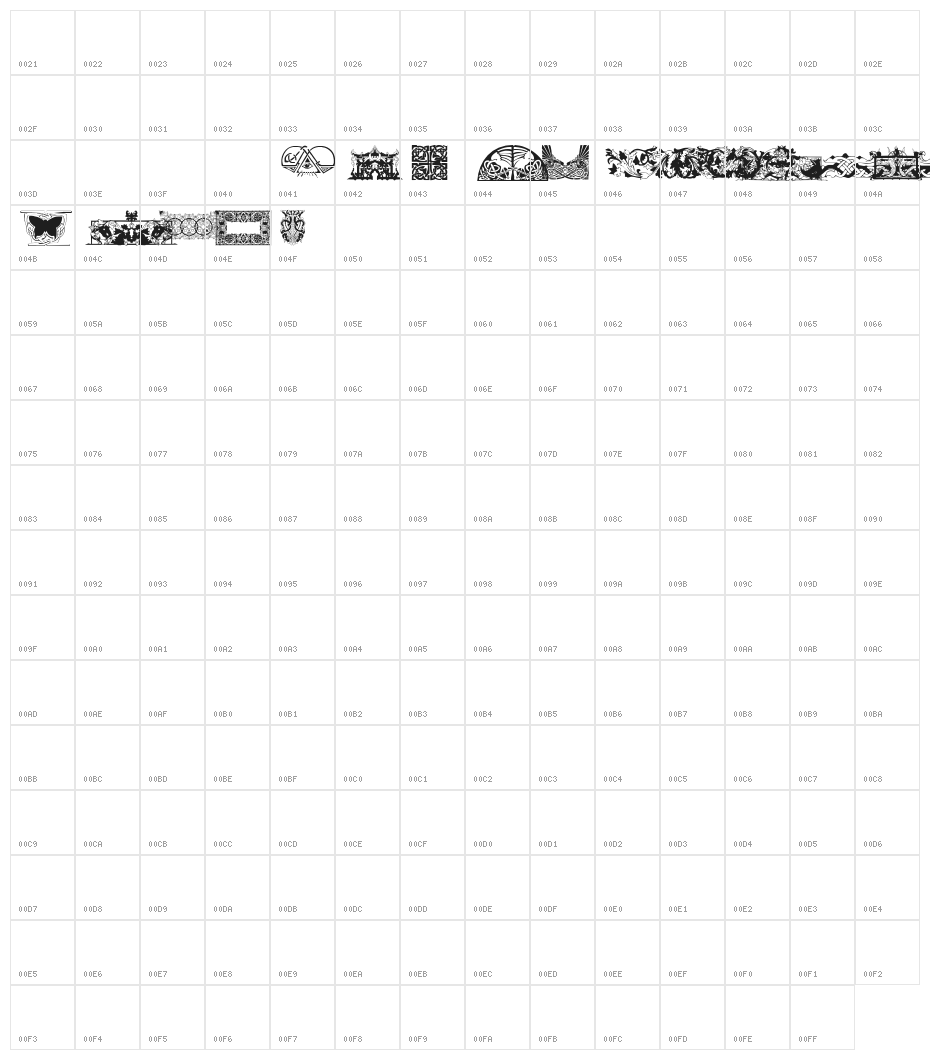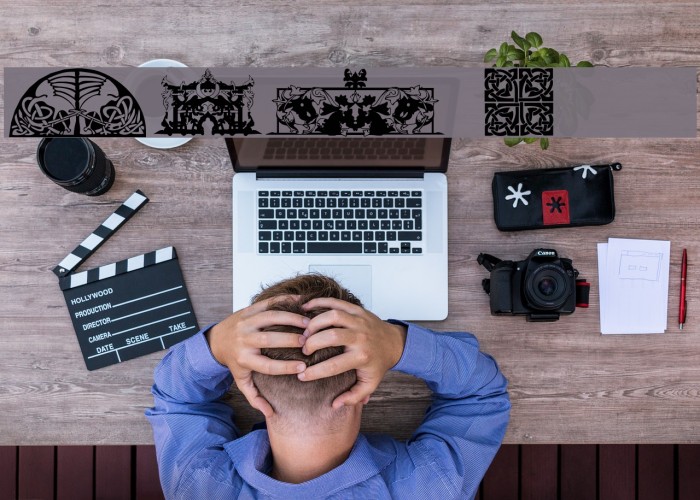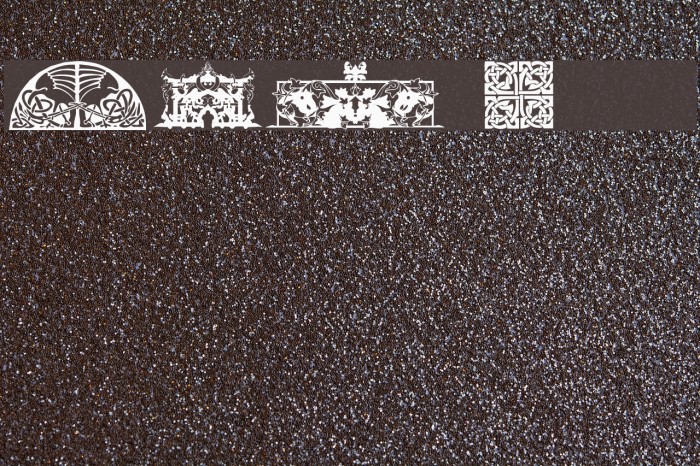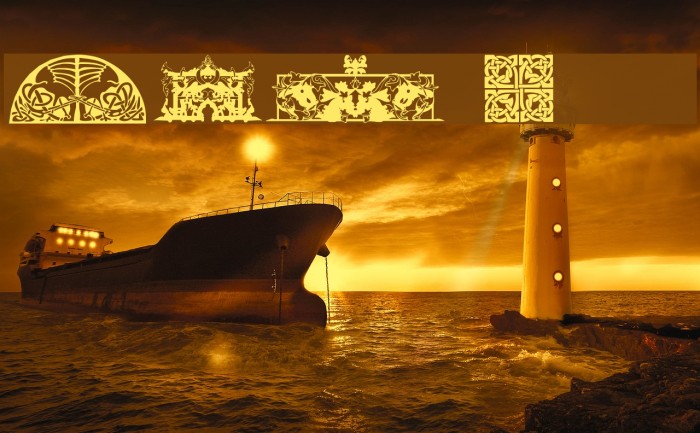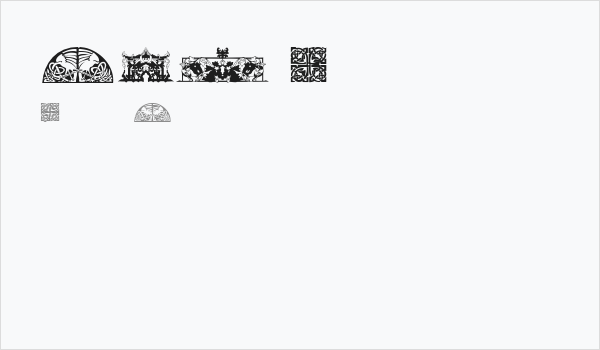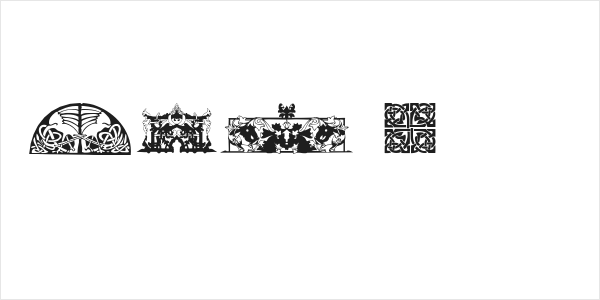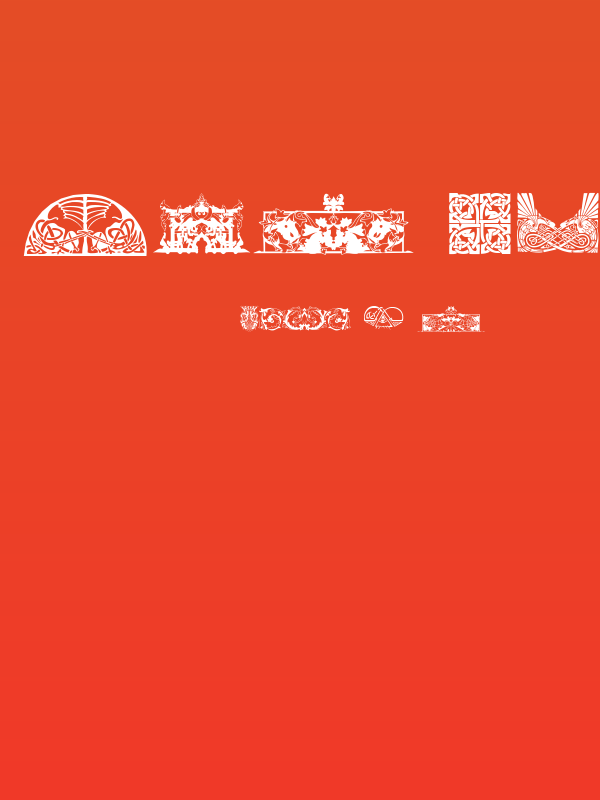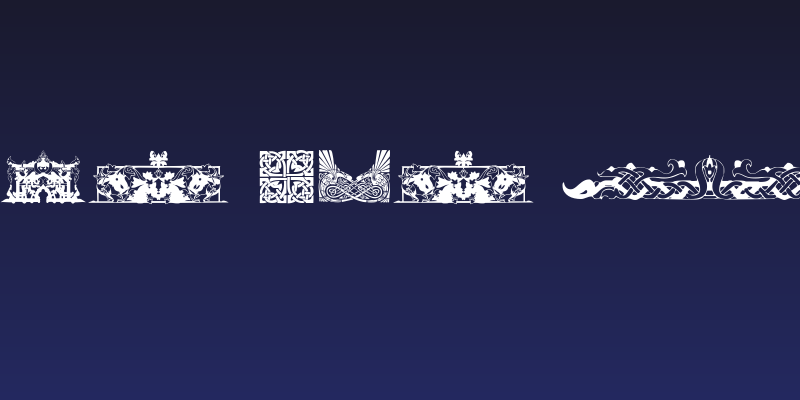
DBL Celtic Font
DBL Celtic Description
This is not a traditional font but rather a collection of intricate Celtic-inspired decorative elements. Each character is adorned with elaborate knotwork and ornamental patterns, reflecting the rich artistic heritage of Celtic design. The characters are highly stylized, with complex interwoven lines and motifs that are more illustrative than textual. This set is ideal for creating borders, embellishments, or thematic designs that require a touch of historical or cultural flair. The elements are detailed and visually striking, making them suitable for projects that aim to capture the essence of Celtic art.
| Use Case | Decorative elements, Thematic designs |
| Proposed Projects | Ideal for creating decorative borders, thematic designs, or embellishments in projects that require a historical or cultural touch. |